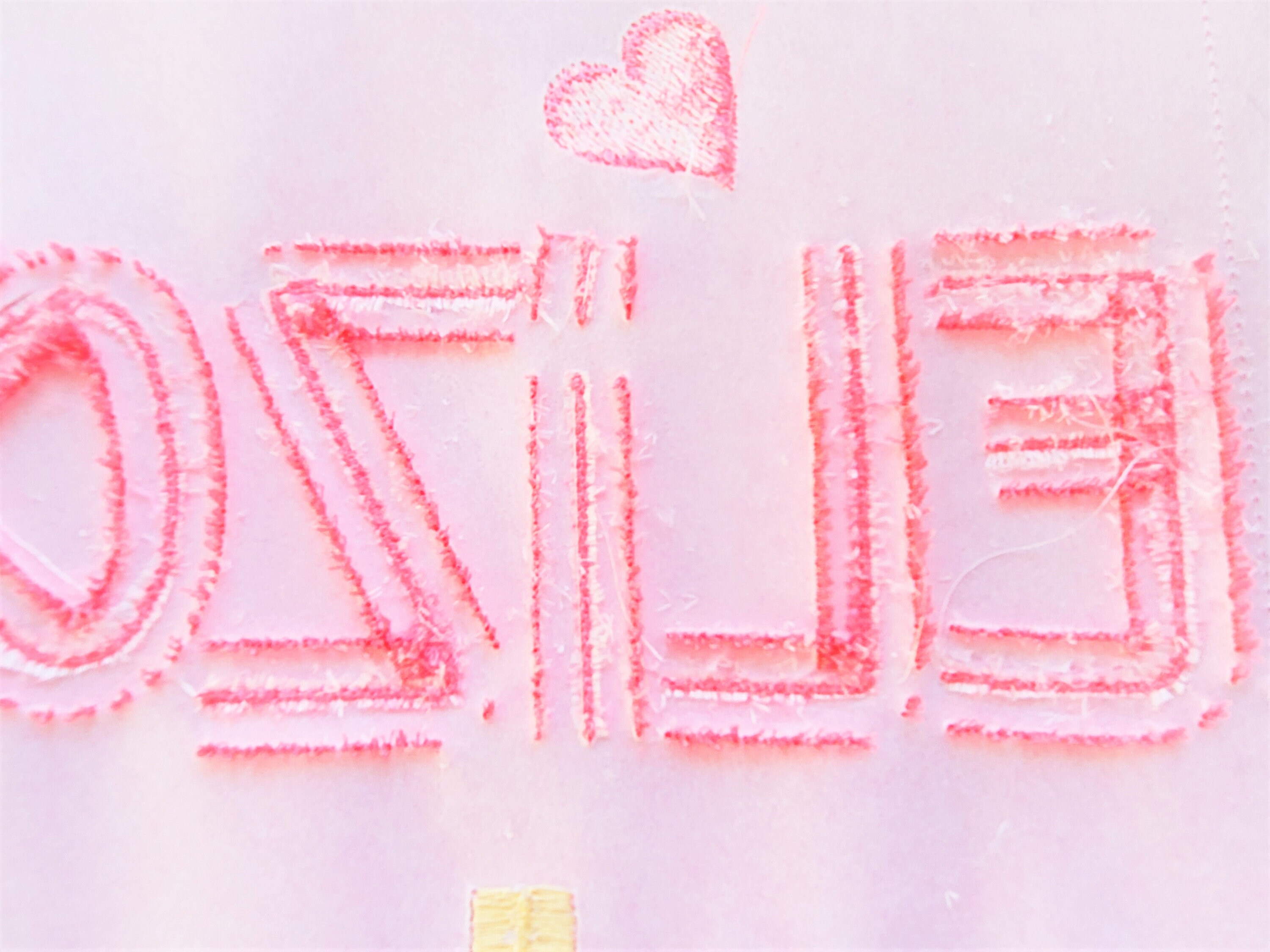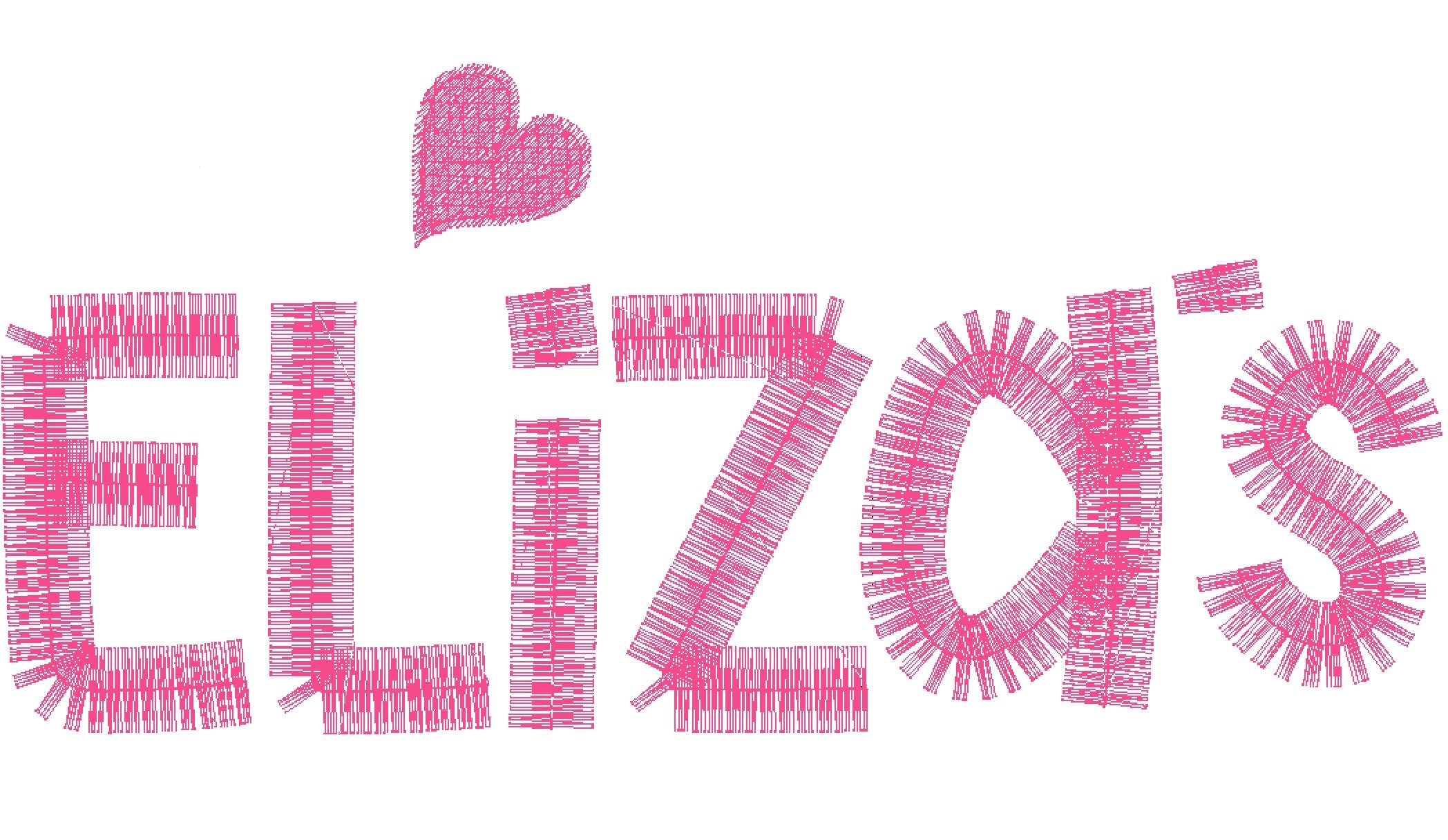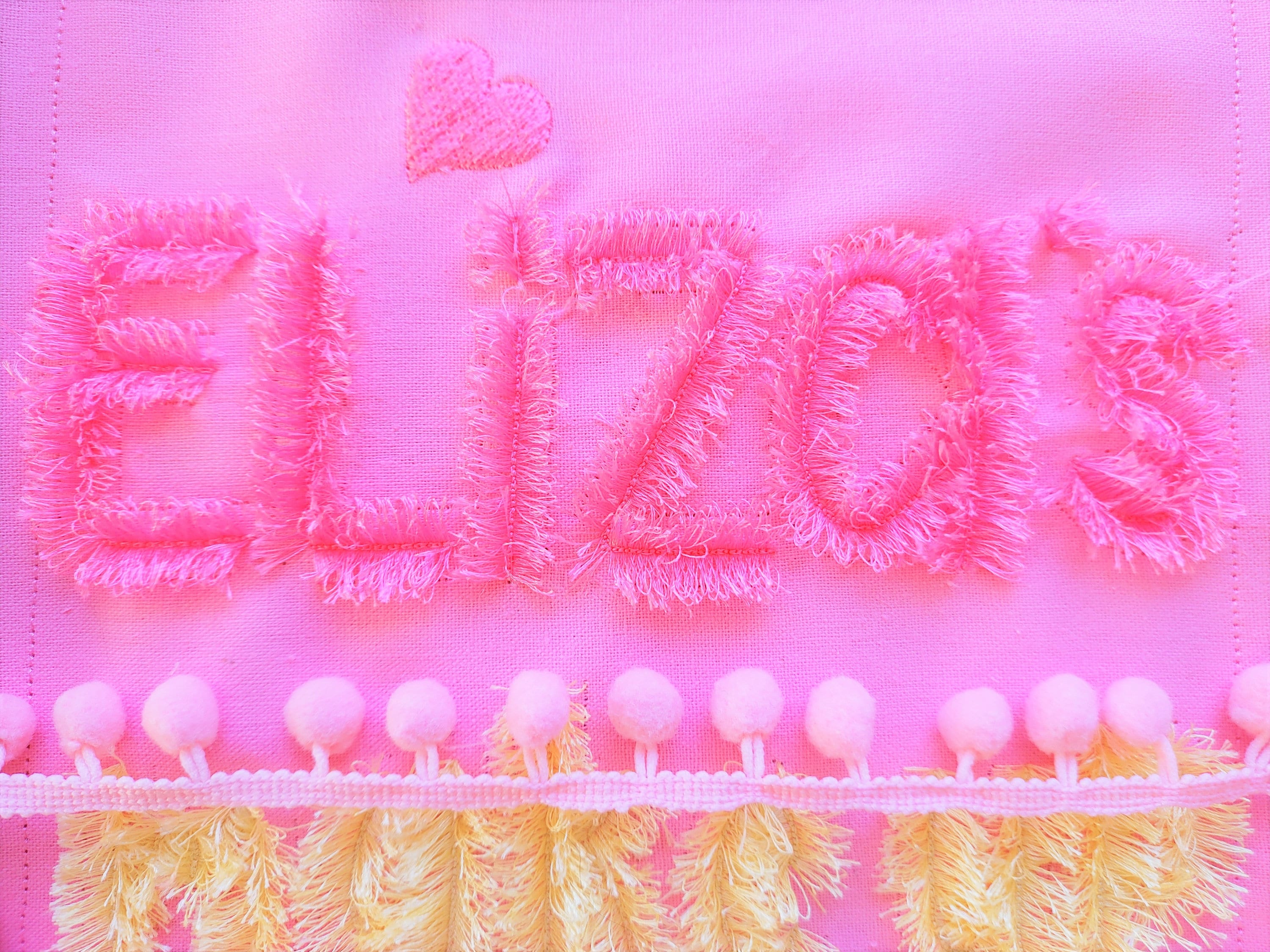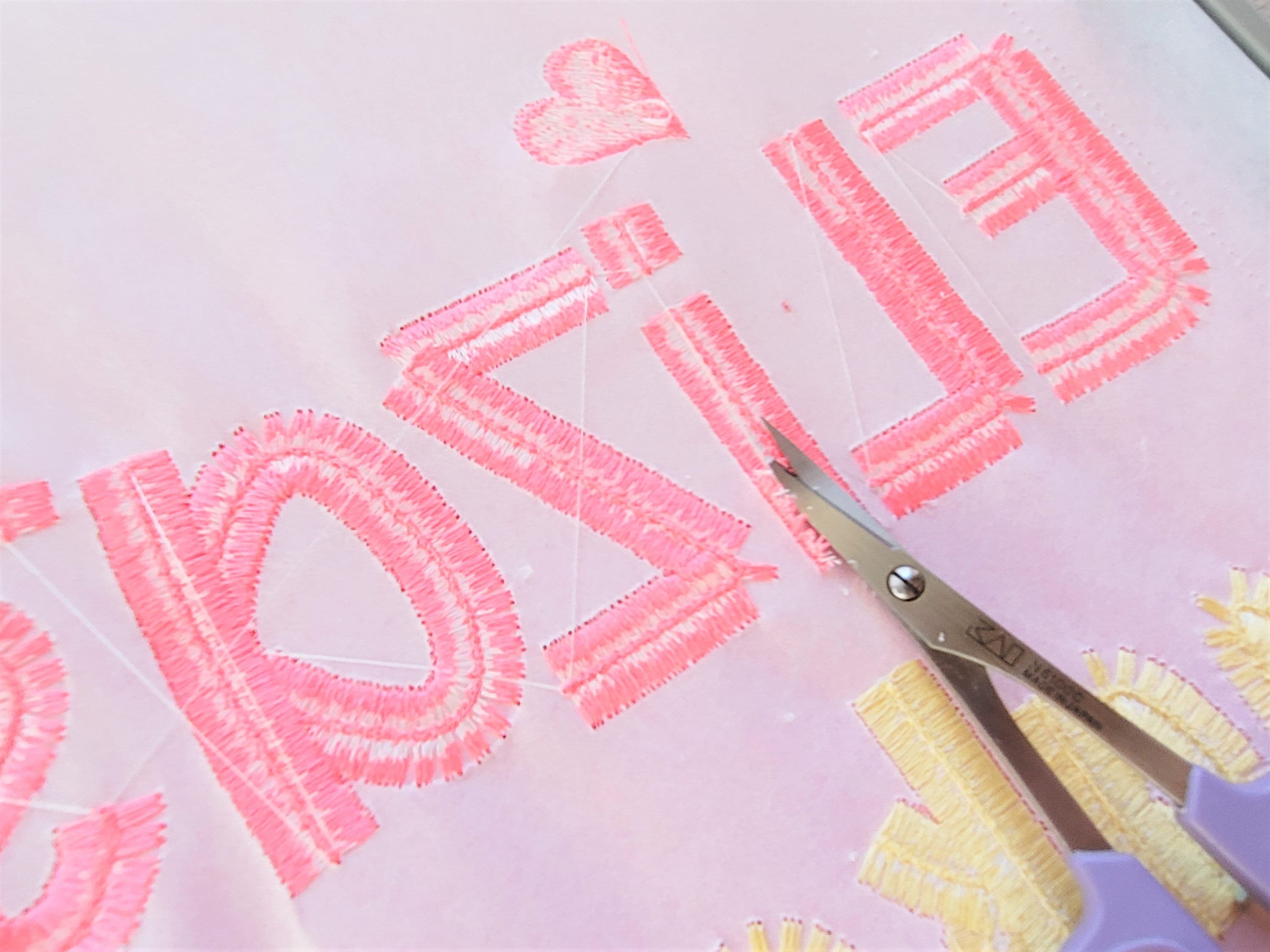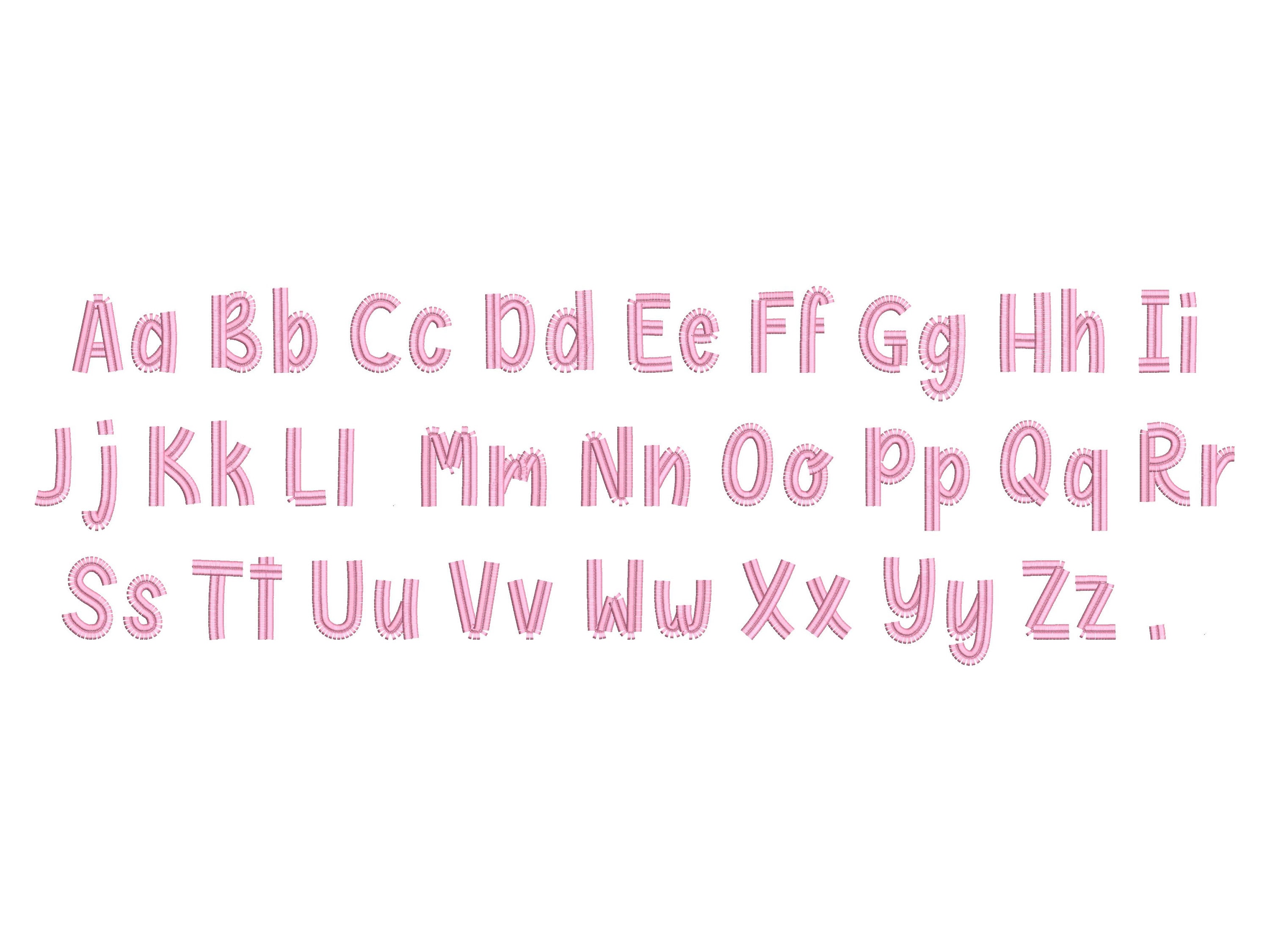
Cute fluffy fringed FONT machine embroidery designs in assorted sizes, girly pretty fluffy letters personalize your gift, BX font included
You may fringe all letters. Please view images on how-to.
Entire alphabet A - Z uppercase and lowercase, and punctuation mark period.